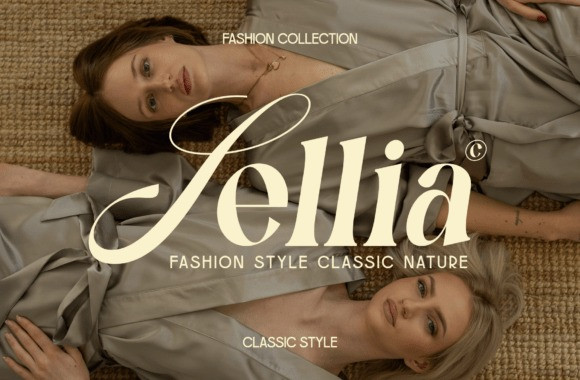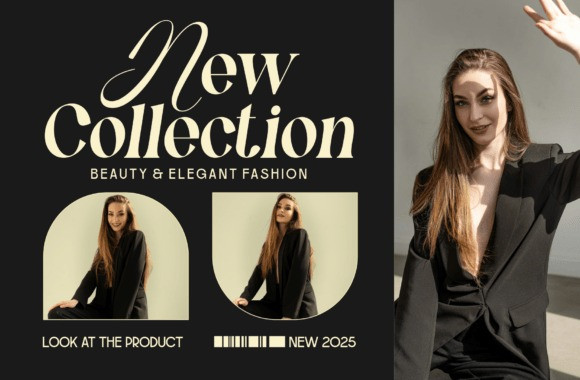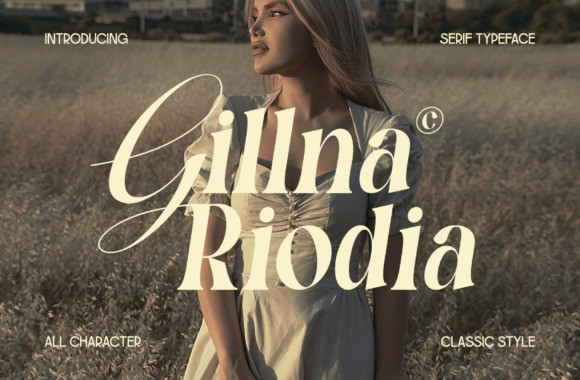
Gillna Riodia Font
Gillna Riodia Font a sophisticated serif typeface that defines high-end style.This Gillna Riodia typeface features a stunning contrast between thick vertical strokes and delicate, hairline horizontals, complemented by graceful, sweeping swashes on its signature characters. Designed for the worlds of high fashion, luxury lifestyle, and fine art, the Gillna Riodia font brings a “classic style” that is both vintage and cutting-edge. It is the premier choice for magazine mastheads, luxury boutique logos, and elegant product packaging.
To create a truly high-fashion aesthetic, pair the Gillna Riodia font with atmospheric photography and generous white space, allowing the intricate details of the serifs to breathe. This Gillna Riodia typeface excels when used for large headlines where its unique swashes can act as a decorative element themselves.
Enhance the design by using “old-world” color palettes—muted creams, deep forest greens, or rich burgundies—to lean into its sophisticated heritage. Whether you are building a “serif typeface” brand for a designer label or crafting an elegant editorial spread, the Gillna Riodia font ensures your work is draped in elegance and prestige.